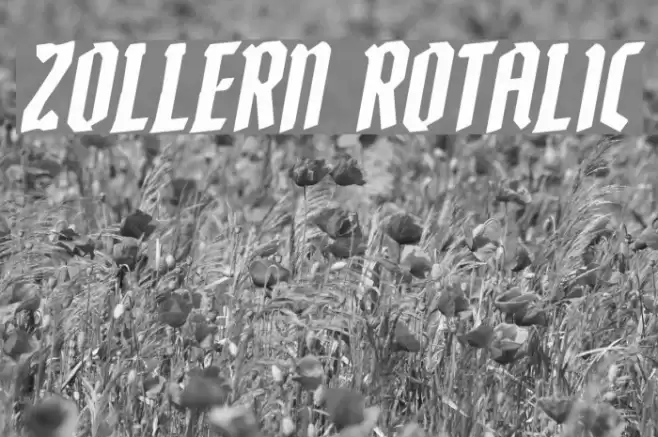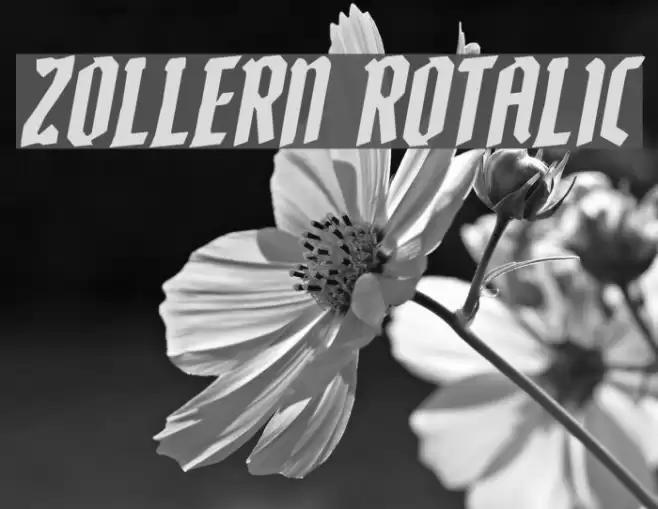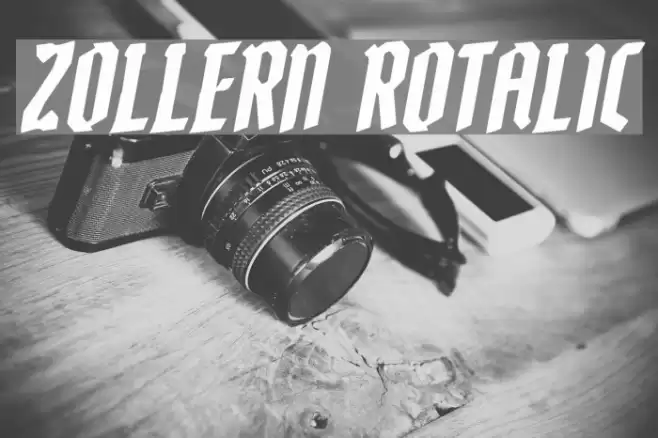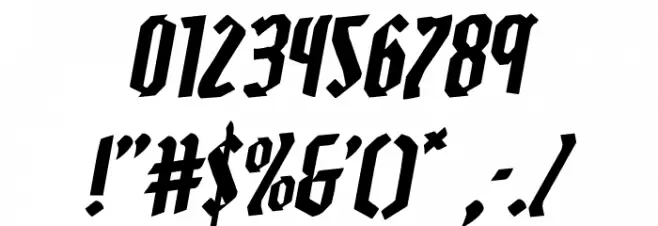
Zollern Rotalic Font
Zollern Rotalic Description
This font showcases a bold and dynamic style with a strong presence. The characters are sharply angled, giving a sense of movement and energy. The uppercase letters are particularly striking, with a consistent slant that adds to the overall impact. The numbers and special characters maintain this bold aesthetic, ensuring uniformity across all elements. The font's design is reminiscent of traditional blackletter styles but with a modern twist, making it suitable for contemporary applications. Its strong lines and sharp edges make it ideal for attention-grabbing headlines or logos.
A bold, dynamic font with sharp angles and a modern blackletter influence from Uncategorized fonts.
- Proposed Projects: Ideal for branding, poster design, and any project requiring a strong visual impact.